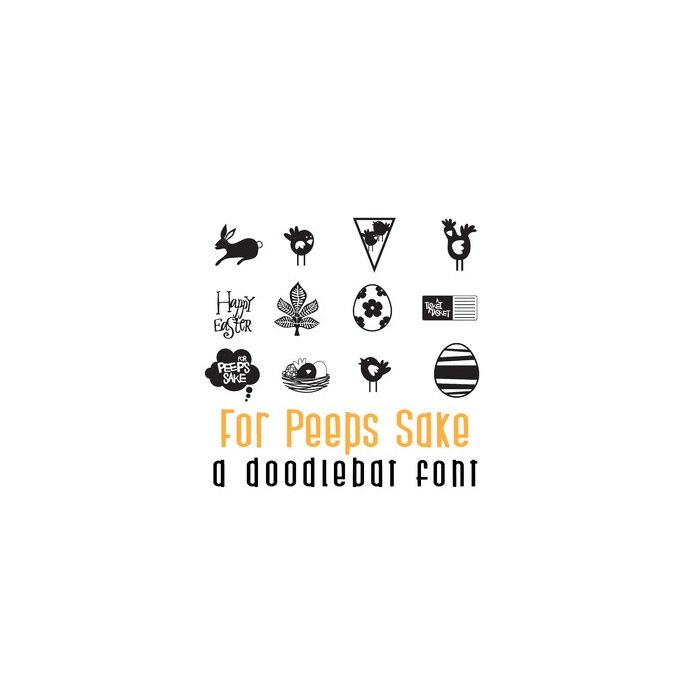
This adorable doodlebat font features 36 Easter images from chicks, to bunnies and more! Perfect for cards, crafts, gifts, planner stickers, decor, classrooms, scrapbook pages and more!